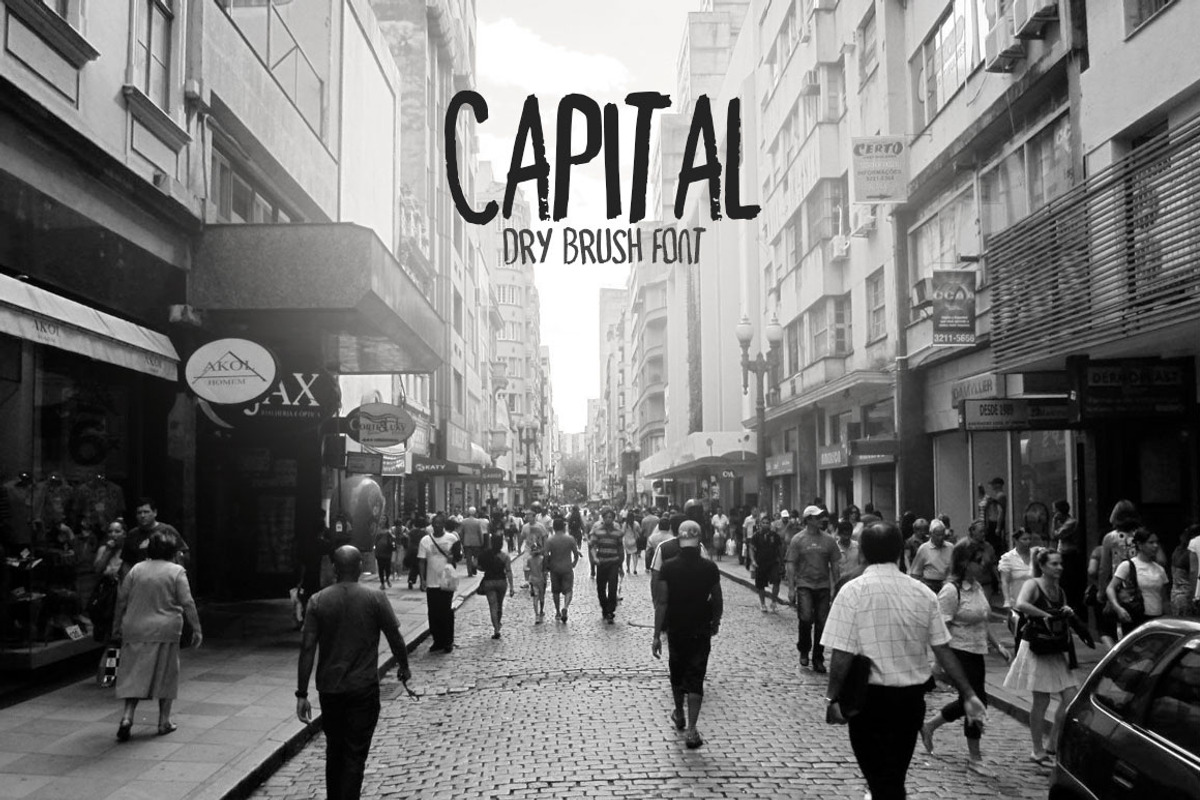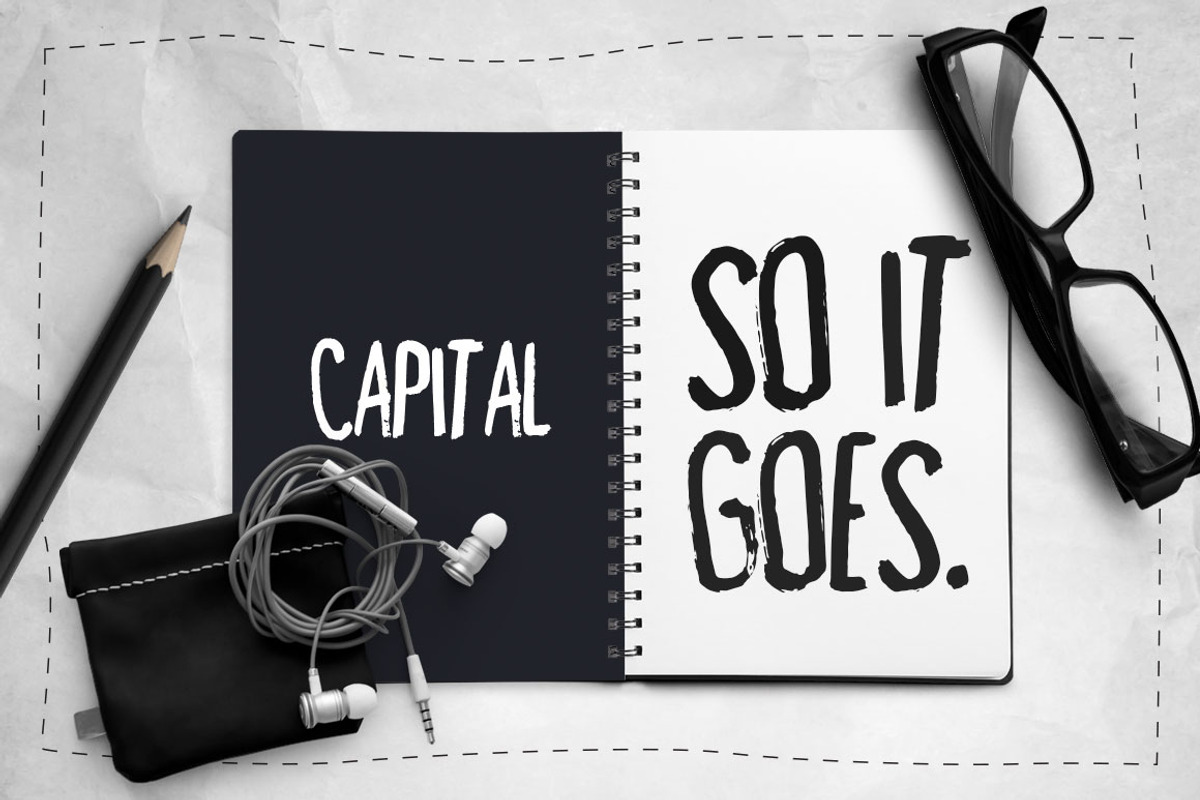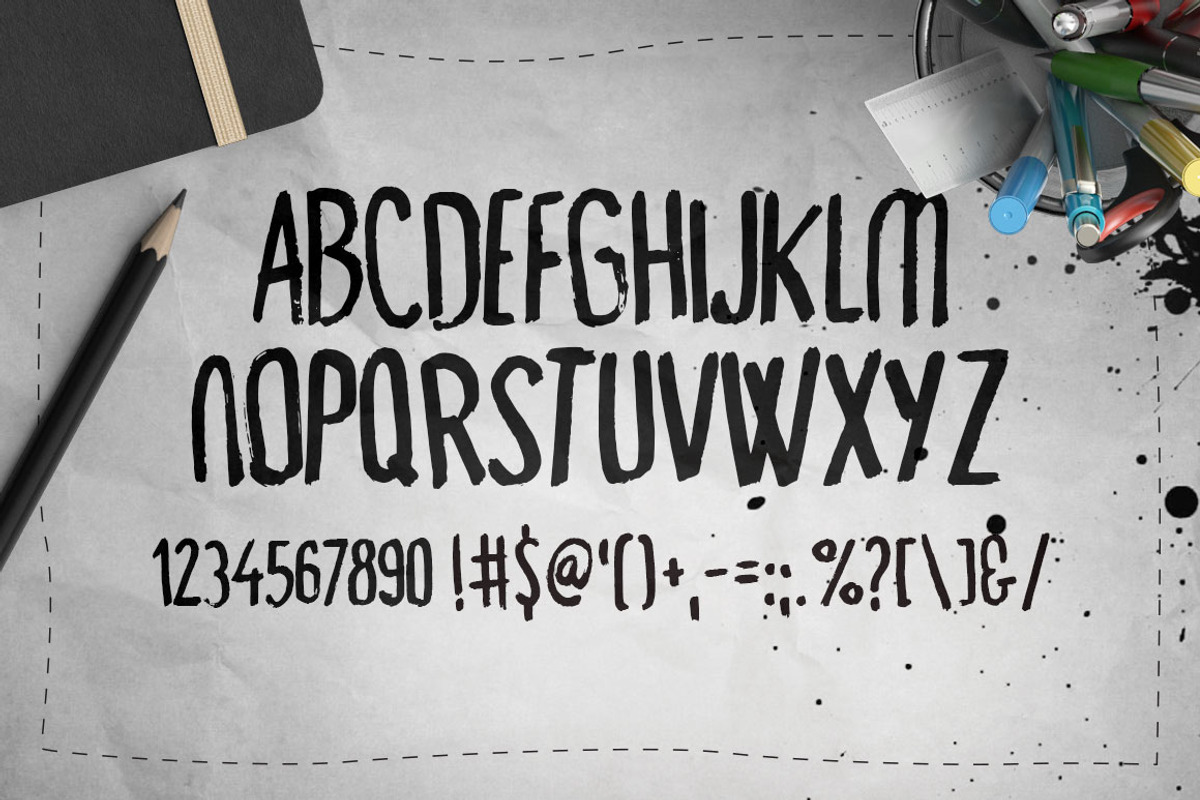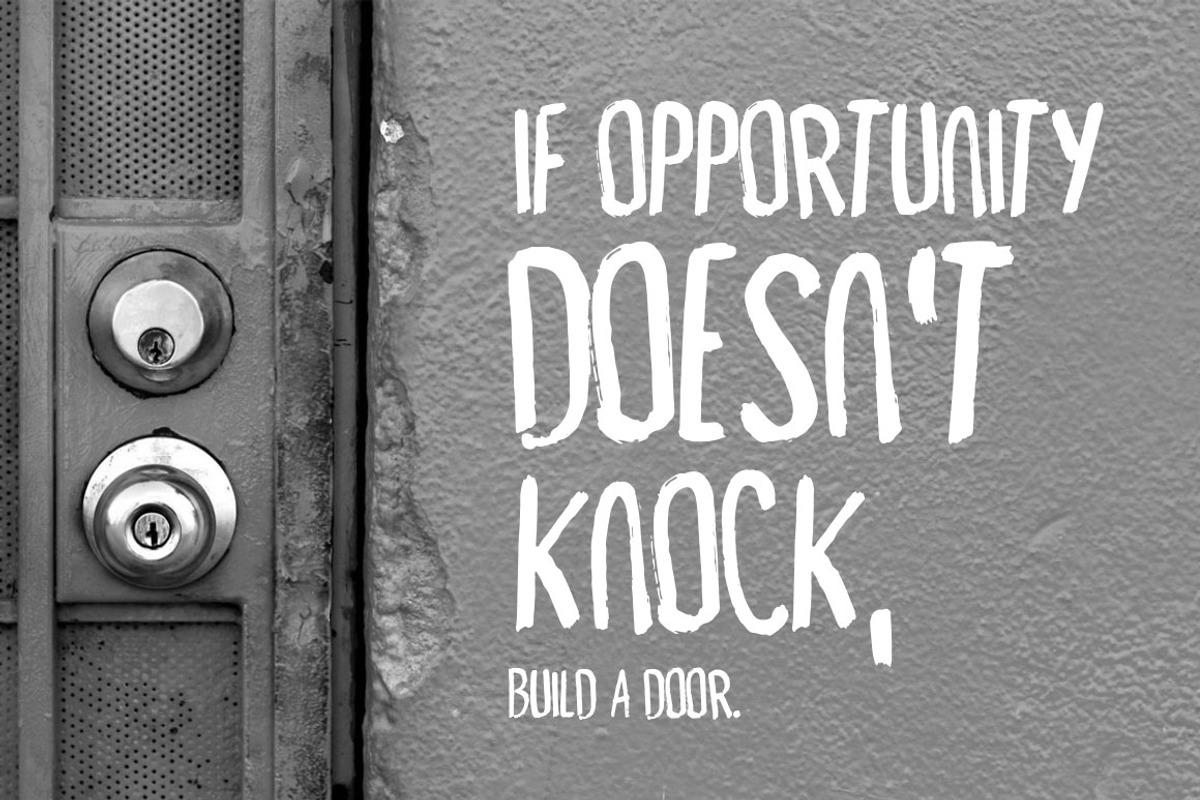
Capital Dry Brush Font
Capital Dry Brush Font by DesignSomething is a font selected for branding, posters, packaging, typography.
Why Capital Dry Brush Font is worth a look
Capital Dry Brush Font by DesignSomething fits naturally into Branding, posters, packaging, typography.